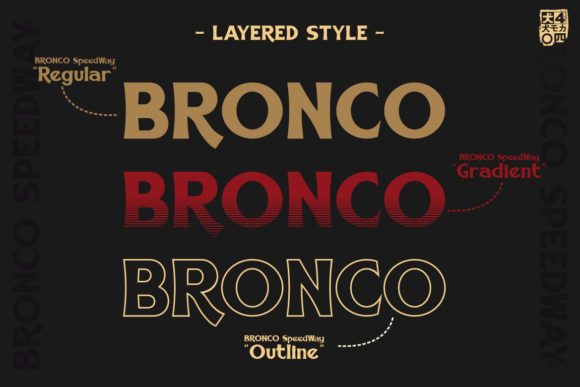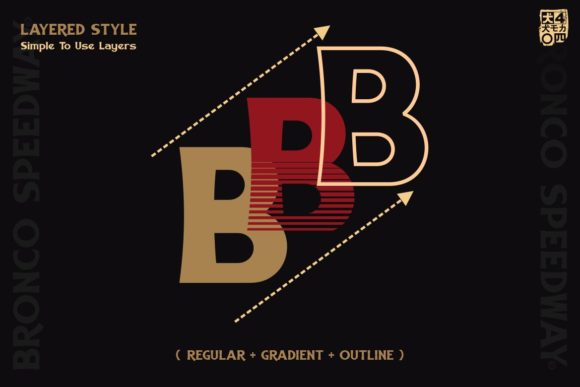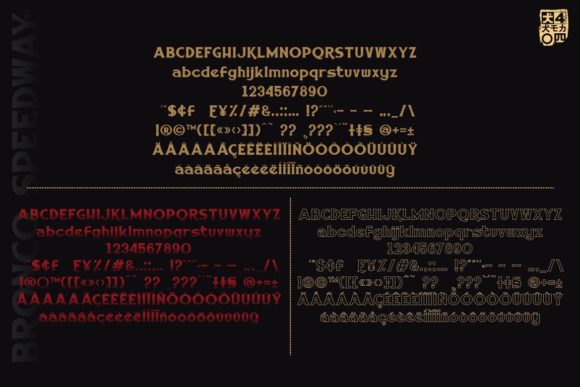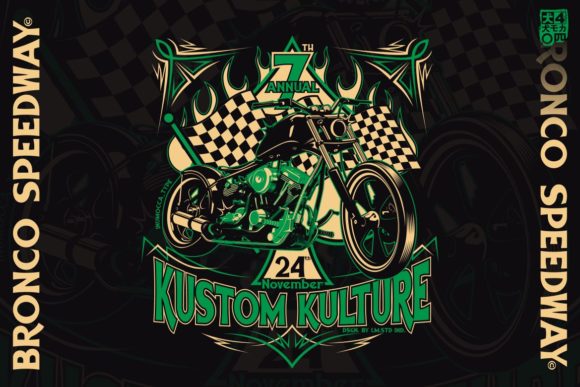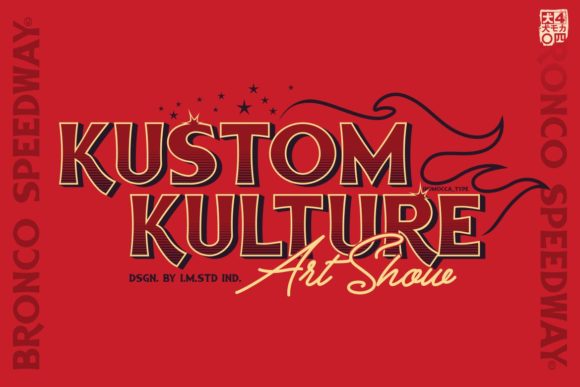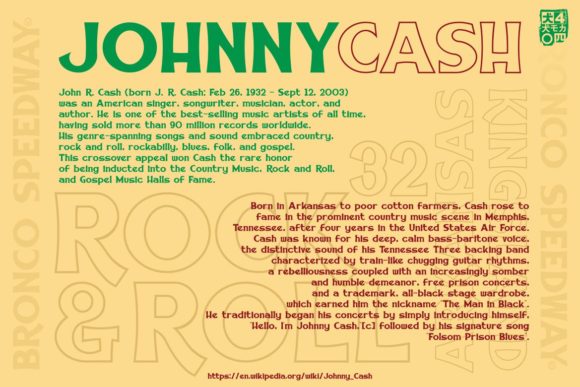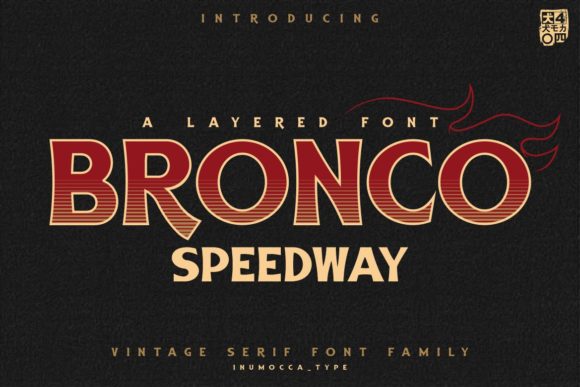
Introducing Bronco Speedway Font: Elevate Your Designs with Style
Are you tired of using the same old fonts for your design projects? Look no further! Bronco Speedway Font is here to take your designs to the next level. This fantastic display font comes in three unique styles: regular, outline, and gradient, making it perfect for a wide range of projects.
What is Bronco Speedway Font?
Bronco Speedway Font is a high-quality display font designed to make your designs stand out. With its bold and eye-catching style, it’s ideal for creating stunning headings, titles, and text elements that demand attention. The font comes in three styles:
- Regular: A solid and bold font perfect for making a statement.
- Outline: A font with a outlined style, great for adding a touch of elegance to your designs.
- Gradient: A font with a gradient effect, adding depth and dimension to your text.
What Can I Use Bronco Speedway Font For?
The versatility of Bronco Speedway Font makes it suitable for a wide range of design projects, including:
- Branding: Create a strong brand identity with a unique and memorable font.
- Headings and Titles: Add a touch of style to your headings and titles, making them stand out from the rest of the content.
- Wedding Designs: Use Bronco Speedway Font to create stunning wedding invitations, decorations, and other wedding-related materials.
- Invitations: Design beautiful and eye-catching invitations for parties, events, and other special occasions.
- Signatures and Logos: Add a personal touch to your signatures and logos with a unique and stylish font.
- Labels and Packaging: Use Bronco Speedway Font to create eye-catching labels and packaging that stands out on store shelves.
Why Choose Bronco Speedway Font?
So, why should you choose Bronco Speedway Font for your design projects? Here are just a few reasons:
- High-Quality: Bronco Speedway Font is designed to be high-quality and crisp, ensuring it looks great in any design.
- Versatile: With three styles to choose from, you can use Bronco Speedway Font for a wide range of design projects.
- Unique: Bronco Speedway Font is a unique and distinctive font that will help your designs stand out from the crowd.
Tips for Using Bronco Speedway Font
Here are a few tips for getting the most out of Bronco Speedway Font:
- Experiment with Different Styles: Try out the different styles of Bronco Speedway Font to see which one works best for your design.
- Pair with Other Fonts: Pair Bronco Speedway Font with other fonts to create a unique and visually appealing combination.
- Use for Headings and Titles: Use Bronco Speedway Font for headings and titles to add a touch of style to your designs.
- Adjust Font Size and Color: Experiment with different font sizes and colors to find the perfect combination for your design.
| Font Name | Bronco Speedway Font |
| Author | inumocca_type |
In conclusion, Bronco Speedway Font is a fantastic display font that can elevate your designs to the highest level. With its three unique styles, versatility, and high-quality design, it’s perfect for a wide range of design projects. Whether you’re a designer, crafter, or DIY enthusiast, Bronco Speedway Font is a great addition to your font collection.